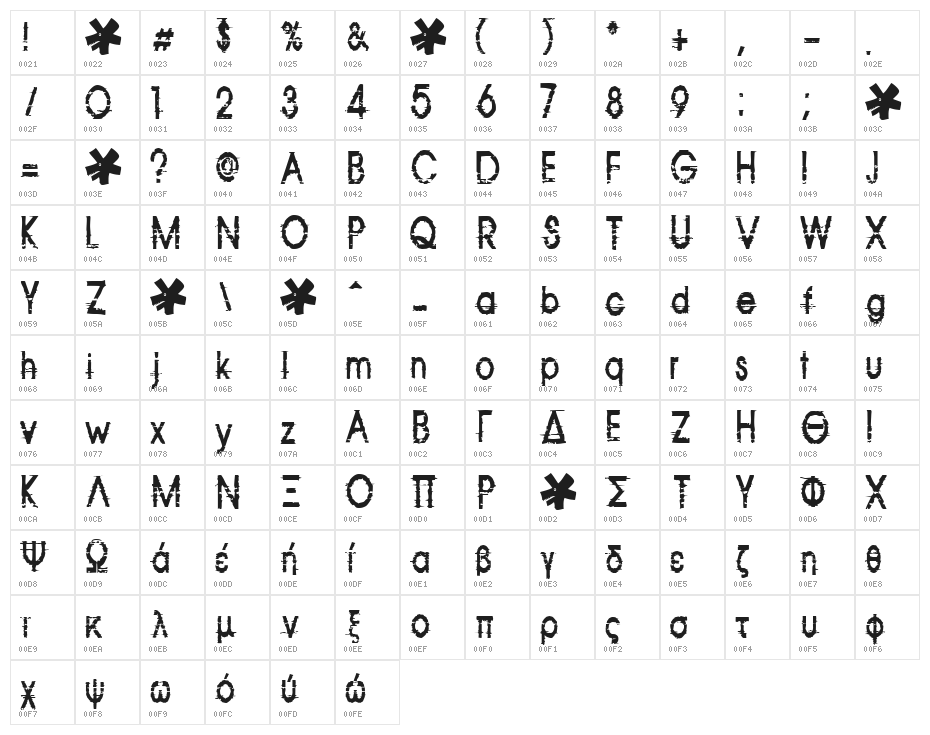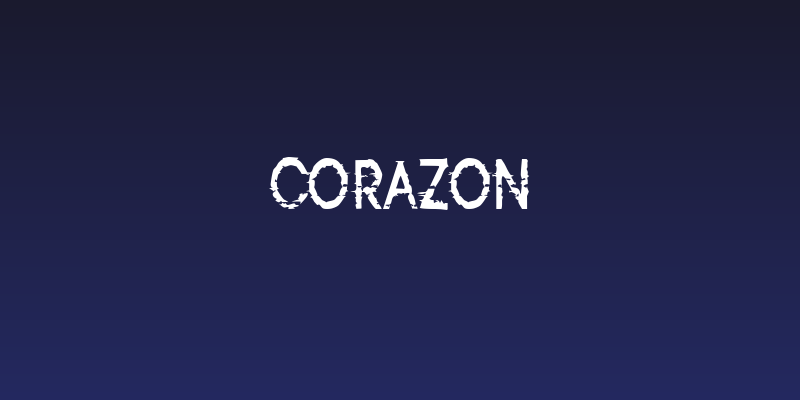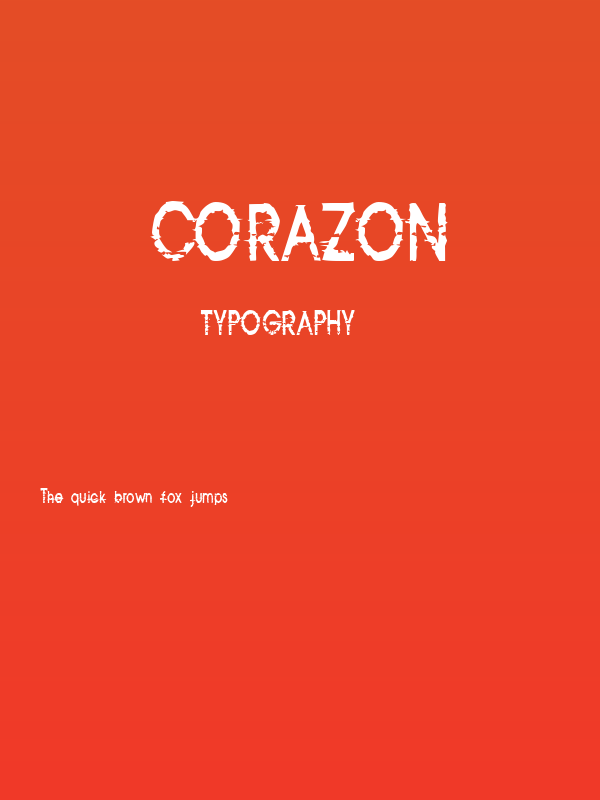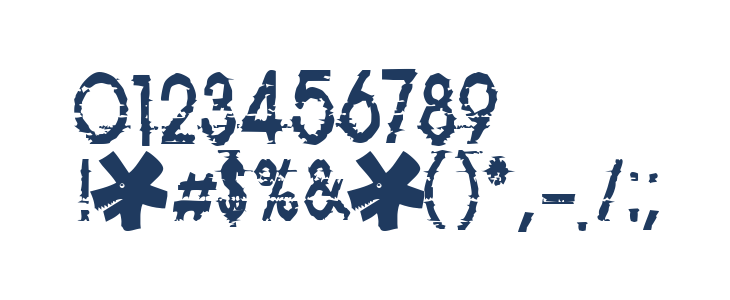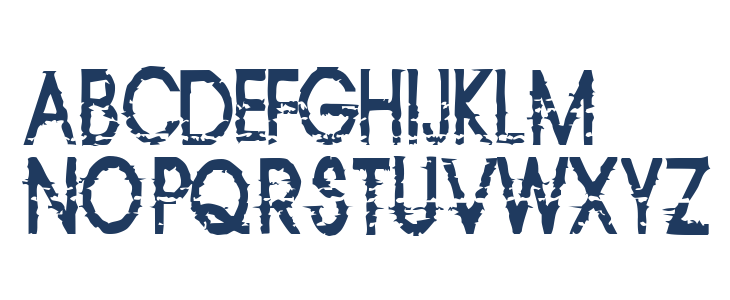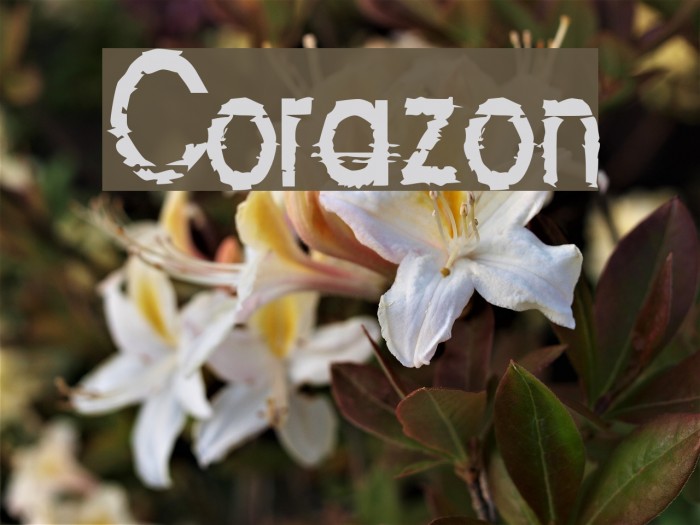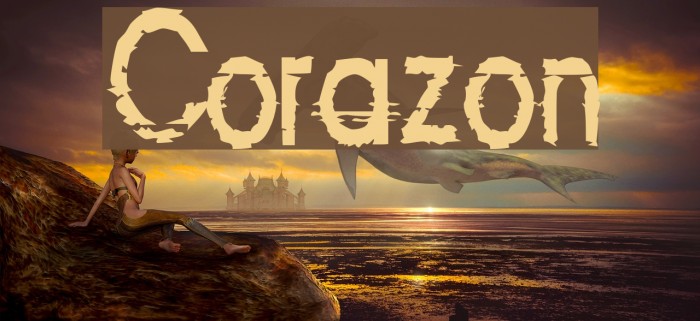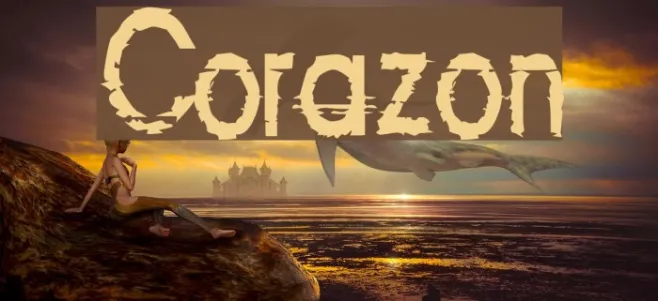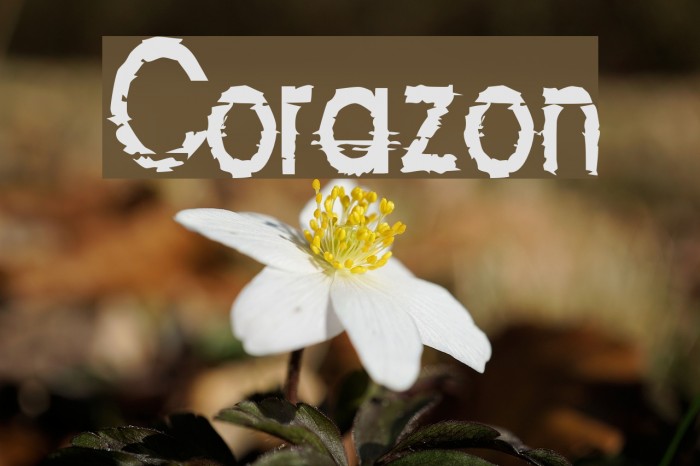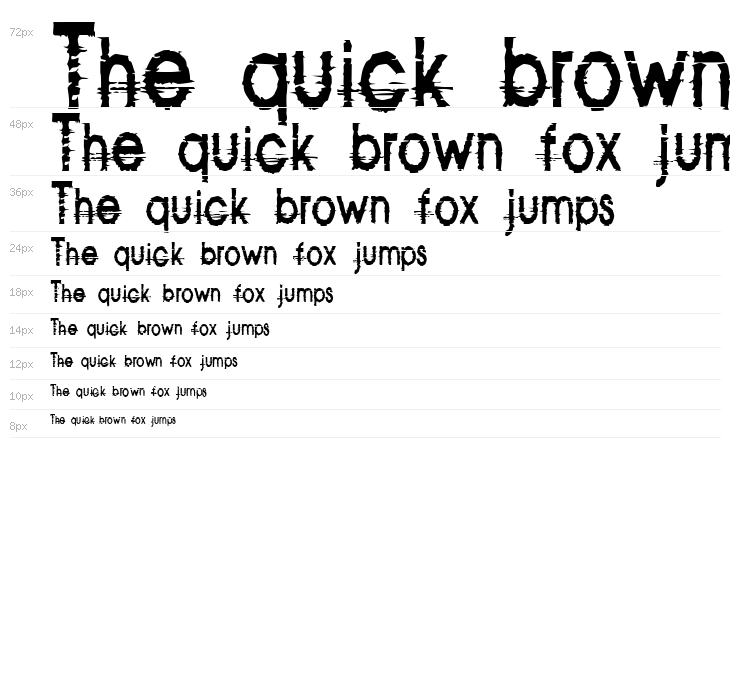
Corazon Font
Corazon Description
This font features a distressed, grunge style with a rough, textured appearance. The characters are bold and have an uneven, jagged edge, giving them a worn and weathered look. The uppercase and lowercase letters maintain a consistent height, while the numbers and special characters follow the same distressed theme. The font's unique style makes it stand out, with its chaotic and artistic flair, perfect for projects that require a bold statement. The irregularities in the design add to its charm, making it suitable for creative and unconventional uses.
| Overall Style | Grunge, Artistic |
| Proposed Projects | Ideal for album covers, posters, street art designs, and edgy branding projects. |